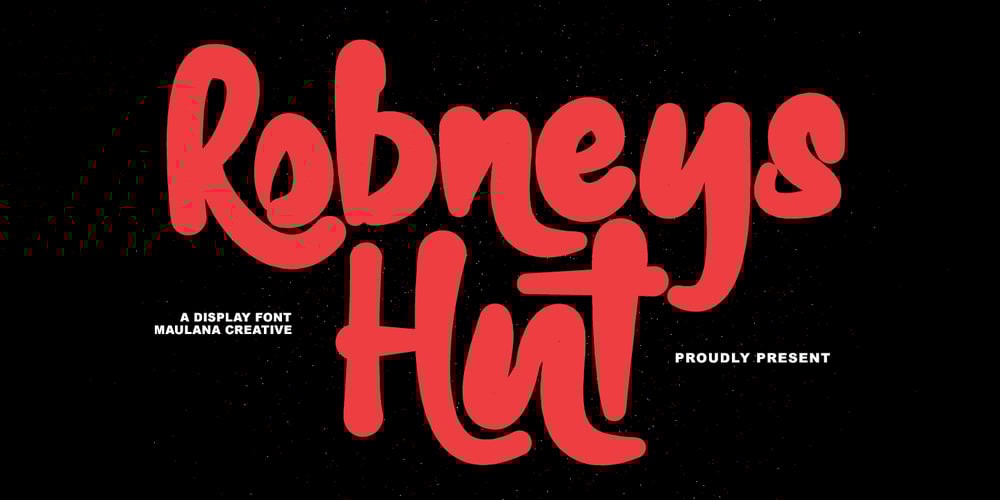
MC Robneys Hut Font Family was designed by Gilang Maulana and published by Maulana Creative. MC Robneys Hut contains 1 styles and family package options. Robneys Hut modern display font. This font is good for logo design, Social media, Movie Titles, Books Titles, a short text even a long text letter and good for your secondary text font with signature or script typeface. Make a stunning work with Robneys Hut modern display font.Cheers,Maulana Creative